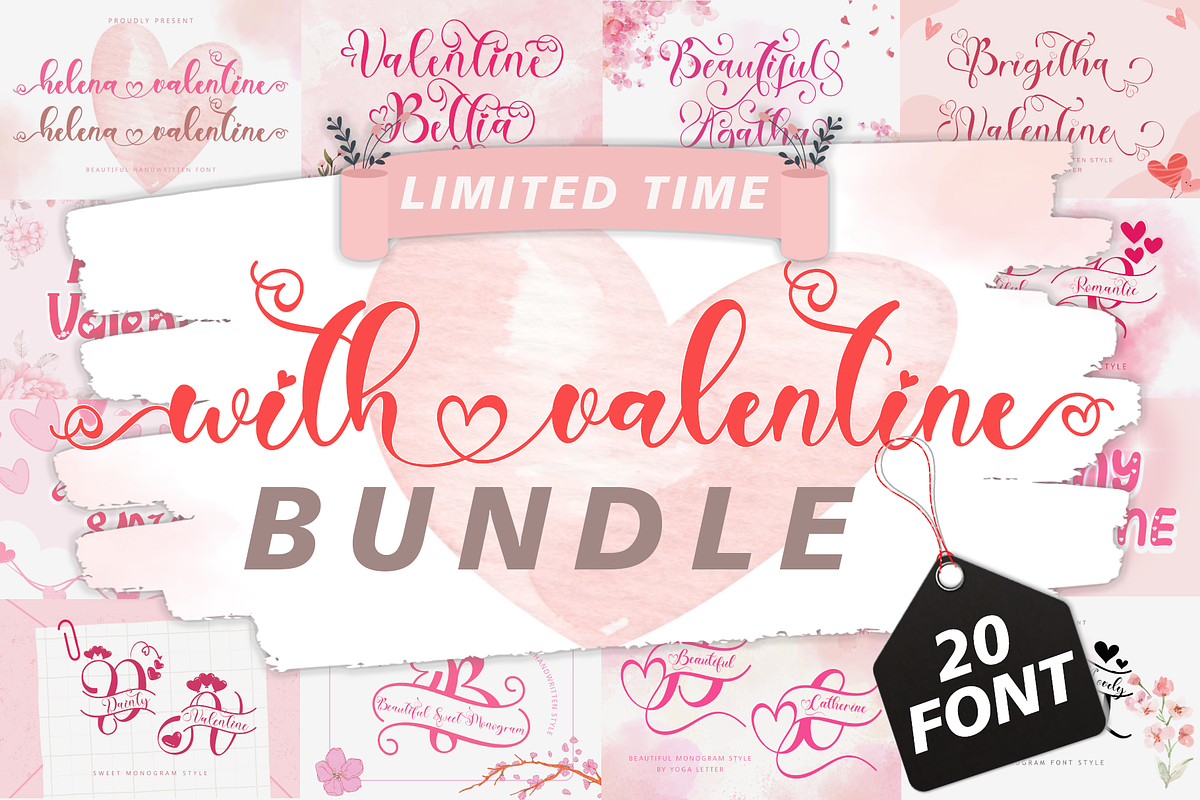
With Valentine Bundle
This set includes 20 font beautiful and popular fonts !!! Helena Valentine Dainty Valentine Beautiful Agatha Brigitha Valentine Anetha Valentine Aisha Valentine Amalia Valentine Beautiful Romantic Monogram Amazing Smile Beautiful Athellin Alestha Butterfly Bonny Valentine Bellia Beautiful Sweet Monogram Beautiful Catherine monogram Beautiful Lovely Monogram Hello Valentine Madelline Rossaline Emillisa
This bundle is perfect for a variety of projects such as christmas, weddings, designs, branding, logos, invitations, stationery, social media posts, advertisements, product packaging, product designs, labels, photography, valentine, easter, mother day, father day, watermarks, special events or whatever.